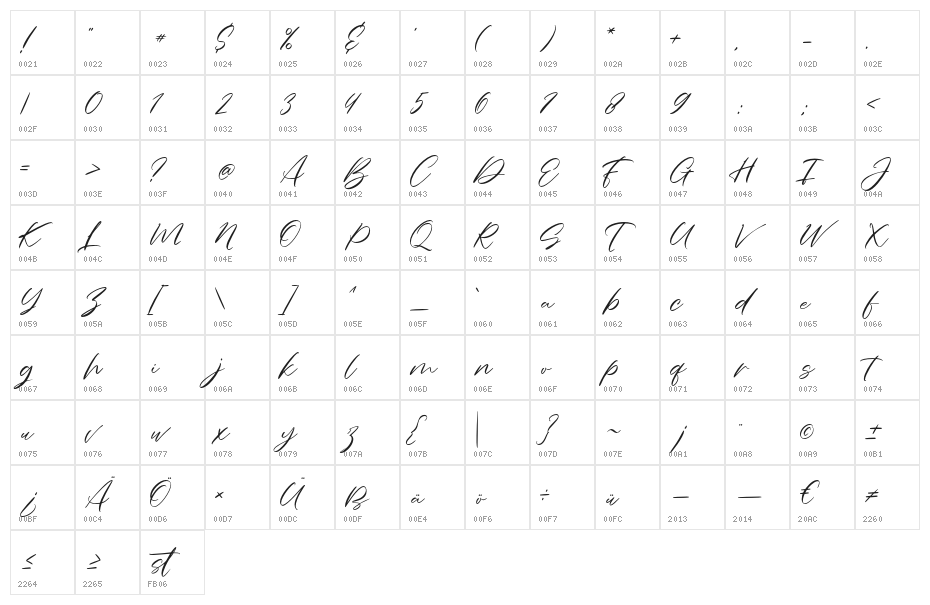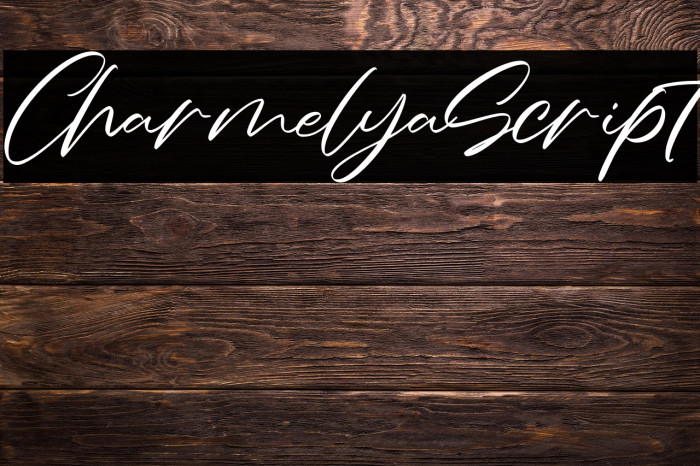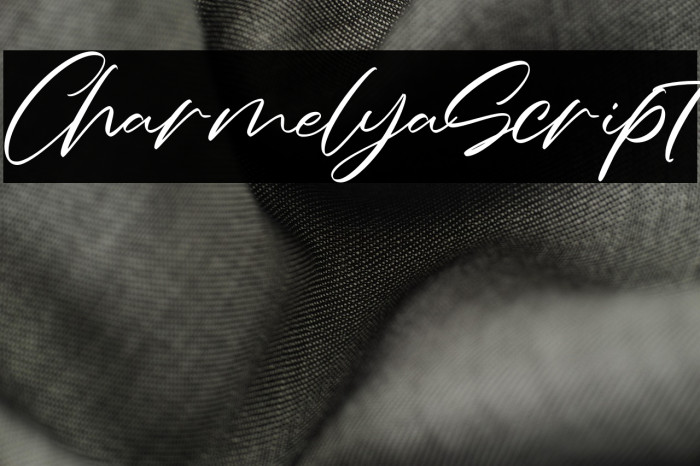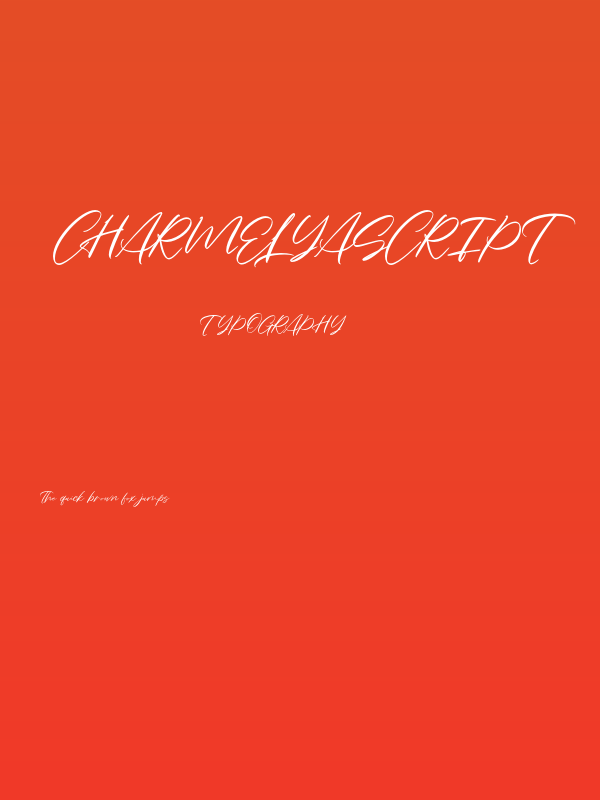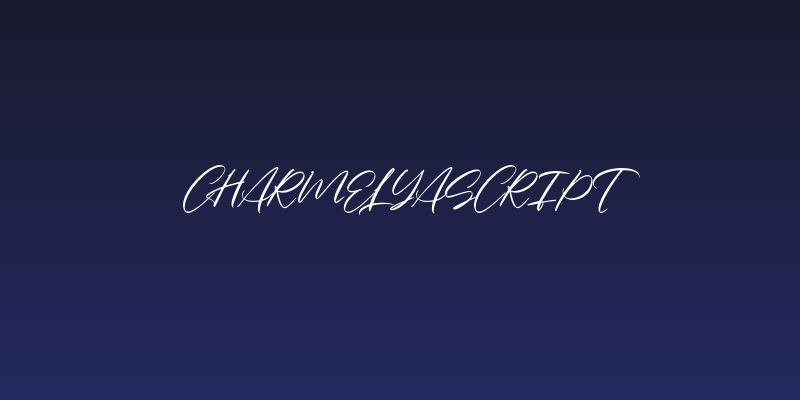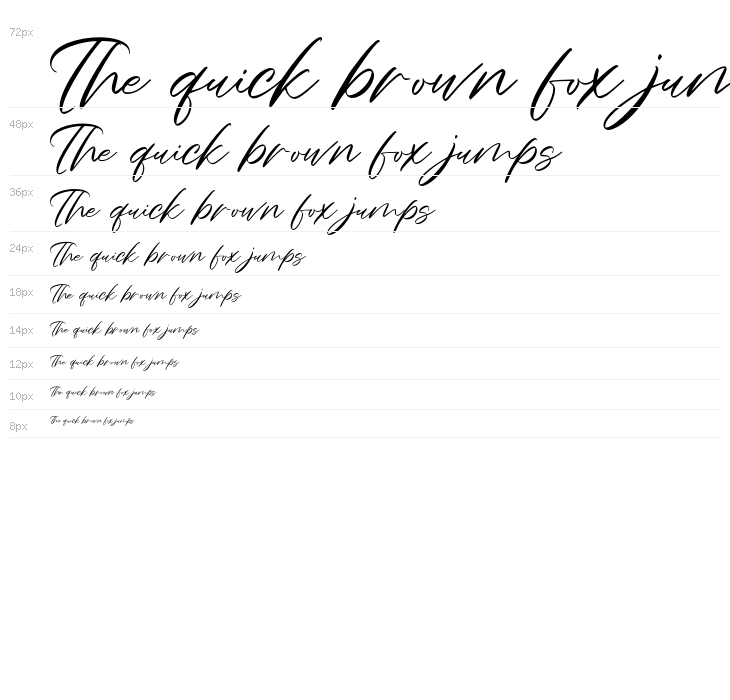
CharmelyaScript Font
CharmelyaScript Description
This elegant script font exudes a sense of fluidity and grace, characterized by its sweeping, cursive strokes and delicate, flowing lines. The letters are interconnected, creating a seamless and harmonious appearance. The uppercase letters are bold and prominent, while the lowercase letters maintain a consistent and smooth flow. The numbers and special characters are crafted with the same attention to detail, ensuring a cohesive look throughout. This font is perfect for adding a touch of sophistication and elegance to any design project.
| Overall Style | Elegant |
| Use Case | Logos, Invitations, Decorative text |
| Proposed Projects | Ideal for wedding invitations, elegant branding, personal stationery, and decorative quotes. |